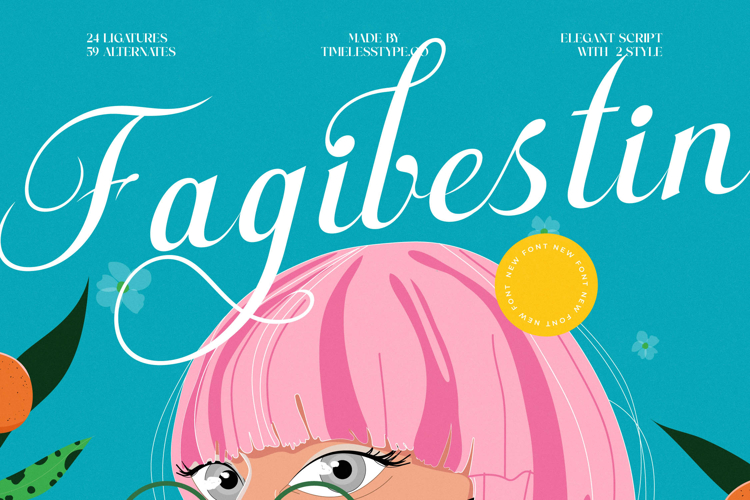
Fagibestin - Elegant Script Font
Fagibestin - Elegant Script Font Script. With its impressive collection of 24 ligatures and 59 alternates across two distinct styles, this font allows for truly customized and authentic typographic compositions. With its extensive multilingual support, Font Fagibestin - Elegant Script Font Script adapts seamlessly across global markets, making it incredibly versatile for international projects, ensuring your message resonates universally.
Achieve unparalleled design distinction with Font Fagibestin - Elegant Script Font Script. It is perfectly suited for a wide array of high-end applications, excelling in luxury branding, wedding invitations, high-fashion editorials, premium packaging, signature logos, stylish social media graphics, and distinguished greeting cards. This font is ideal for any project demanding an air of exclusivity, charm, and unmistakable elegance.
Inject your creative endeavors with an undeniable touch of class. Font Fagibestin - Elegant Script Font Script offers designers and brands the power to create truly memorable and impactful visual narratives. Choose this versatile and captivating script to ensure your brand communication stands out, leaving a lasting impression of refined taste and artistic flair.